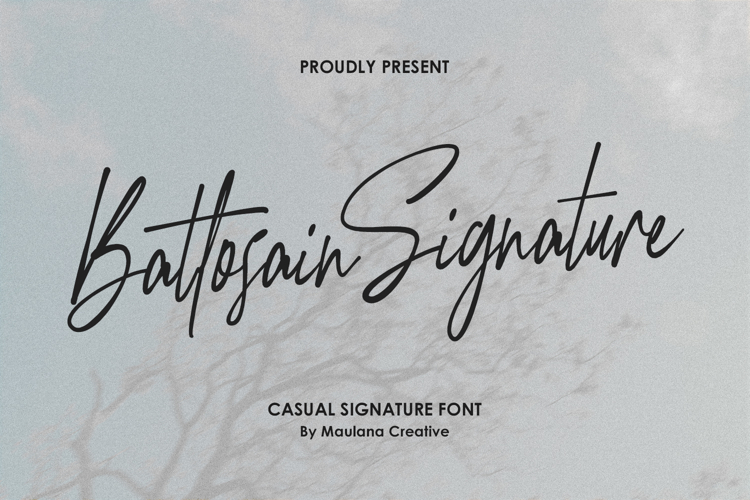
Battosain Signature Modern Handcrafted Script Font
Introducing Battosain Signature, the modern, handcrafted script font designed to infuse your projects with a touch of elegance and effortless charm. This casual signature font mimics the natural flow of authentic handwriting, making it the perfect choice for designers looking to create a genuinely human connection with their audience. Create memorable, aspirational brand marks that feel exclusive. Add a romantic, bespoke feel to your special announcements. Personalize your images with a chic, professional signature. Make your content stand out with stylish, eye-catching typography. Give your products a premium, artisanal look.
Carefully crafted with varying line weights and an organic rhythm for a realistic handwritten feel. Includes all Uppercase and Lowercase letters, Numerals, and Punctuation. Includes a selection of stylistic ligatures to create stunning, professional-level text layouts that truly shine.